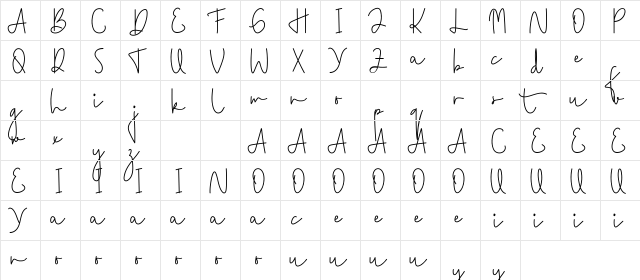
Pep Talk Demo Script
Design Context for Pep Talk Demo Typeface
Pep Talk Demo brings a calligraphic fluidity to the page — its connecting strokes and expressive curves give it an unmistakably human quality.